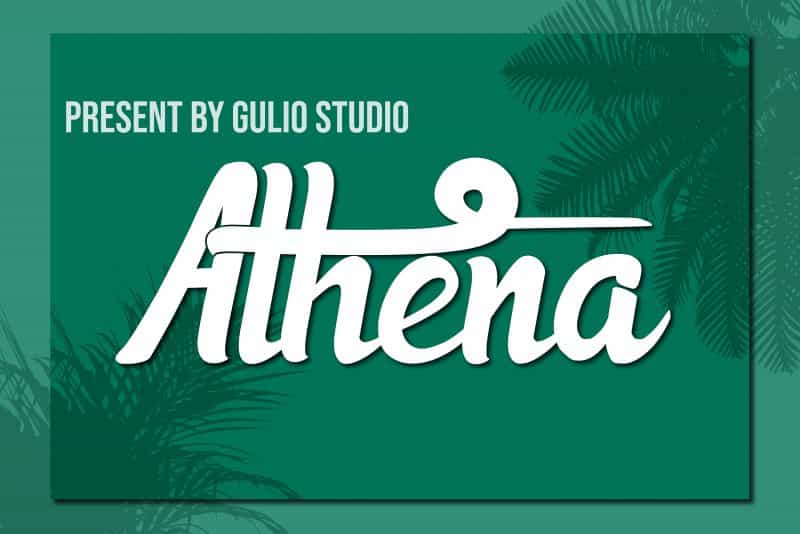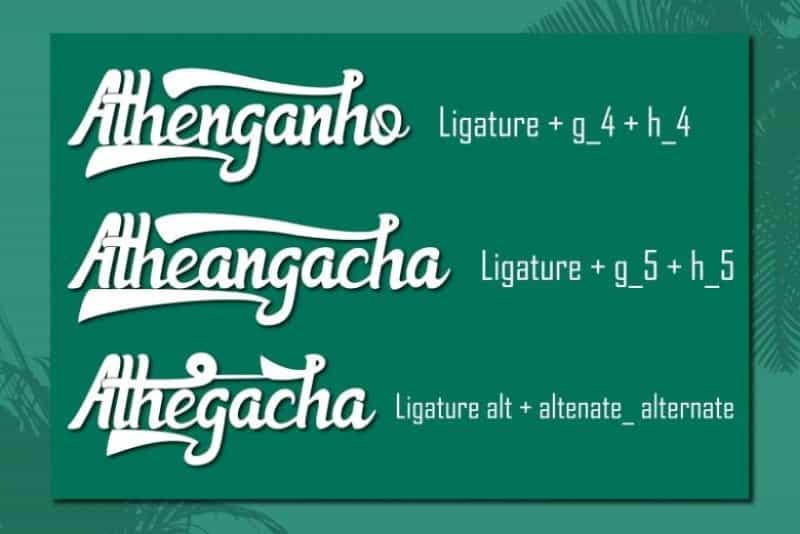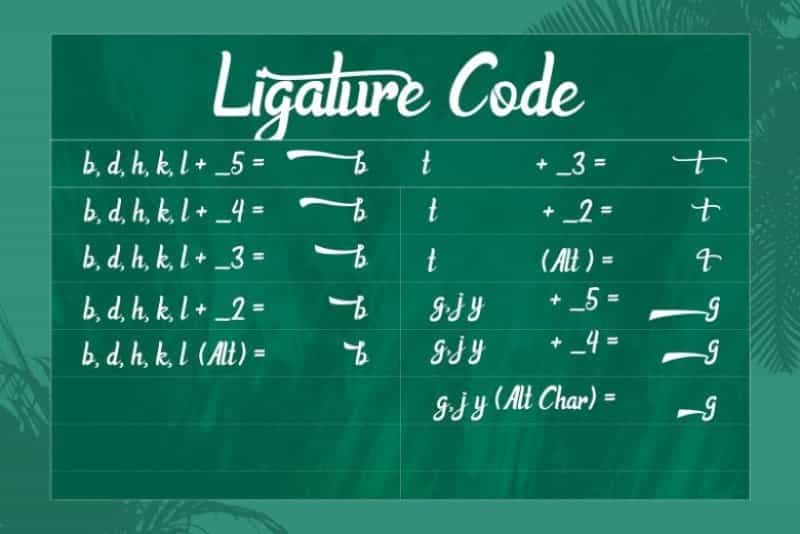
Discover Athena Script Font, part of the Brush collection—a versatile and unique font perfect for adding a personal touch to your projects. Download it for free and enjoy crafting designs with style, from invitations to social media posts. This font is available exclusively for personal use, giving you the freedom to create without limits. Unlock your creativity with Athena Script Font today!
Athena Font draws its name from the goddess known for her intelligence and beauty – qualities that reflect in the Athena Script itself. With its striking beauty and numerous advantages This typeface is great for logos brochures pamphlets invitations flyers and various design projects.